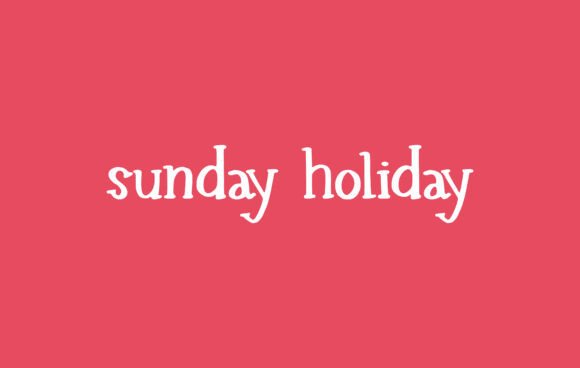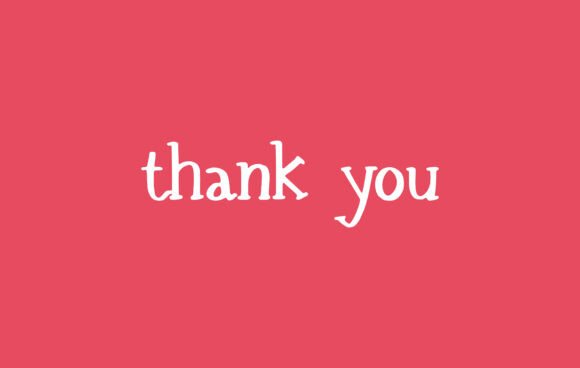
Discover the Charm of Fabian Font: Elevate Your Designs with a Romantic Touch
In the world of typography, a well-crafted font can make all the difference in bringing your creative visions to life. For designers and crafters seeking to add a touch of elegance and romance to their projects, Fabian Font emerges as an exceptional choice. This authentic handwritten font is not just a typeface; it’s an invitation to infuse your designs with a sense of warmth, personality, and sophistication.
The Essence of Fabian Font
Fabian Font is expertly designed to capture the essence of handwritten typography with a romantic flair. Its authentic feel makes it stand out in the digital age, where fonts often lean towards the modern and minimalist. This font is not just about aesthetics; it’s about conveying emotions and creating connections. Whether you’re working on magazine headlines, social media graphics, branding materials, wedding invitations, or greeting cards, Fabian Font offers the versatility and charm to make your projects memorable.
One of the key advantages of Fabian Font is its incredible versatility. It’s designed to be legible and visually appealing, whether used as a title or body text. This flexibility makes it an ideal choice for a wide range of design projects. Here are a few ways you can leverage Fabian Font:
- Magazine Headlines: Create eye-catching titles that draw readers in with Fabian Font’s unique and captivating style.
- Social Media: Stand out on social media platforms with graphics that exude a personal touch and elegance.
- Branding: Develop a distinctive brand voice and aesthetic that resonates with your audience.
- Wedding Invitations: Add a romantic and personal touch to wedding invitations and wedding-related stationery.
- Cards: Whether it’s a birthday, anniversary, or holiday card, Fabian Font can help you express your sentiments in a beautiful and heartfelt way.
Why Choose Fabian Font?
Fabian Font is more than just a typeface; it’s a tool that can elevate your designs from ordinary to extraordinary. Here are a few reasons why designers and crafters are falling in love with this font:
- Romantic Touch: It adds a unique romantic flair to your designs, making them more engaging and emotionally resonant.
- Legibility: Despite its handwritten nature, Fabian Font maintains high legibility, making it suitable for both titles and body text.
- Authenticity: Its authentic handwritten feel gives designs a personal and genuine look.
- Versatility: It can be used across various design projects, from digital graphics to print materials.
Tips for Using Fabian Font Effectively
To get the most out of Fabian Font, consider the following tips:
- Mix and Match: Don’t be afraid to experiment with different sizes, colors, and styles to create visual hierarchy and interest.
- Pair Wisely: When pairing Fabian Font with other typefaces, choose fonts that complement its romantic and handwritten feel.
- Consider Context: Think about the message you want to convey and choose colors and design elements that align with the mood and tone of your project.
Fabian Font is a beautiful addition to any designer’s toolkit. Its unique blend of romanticism, authenticity, and versatility makes it an excellent choice for a wide range of projects. Whether you’re a professional designer or a crafter looking to add a personal touch to your creations, Fabian Font has the potential to elevate your designs and make them truly unforgettable. So, why settle for ordinary when you can create something extraordinary with Fabian Font?